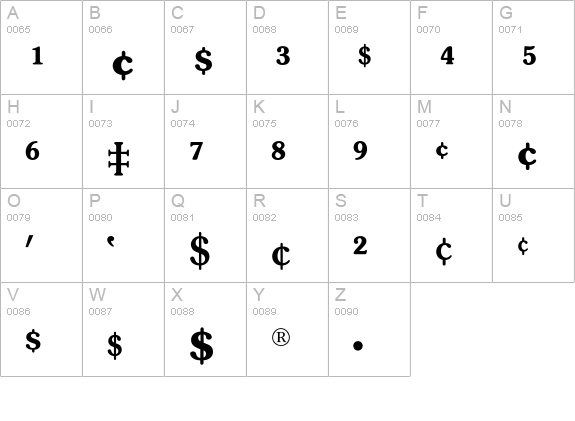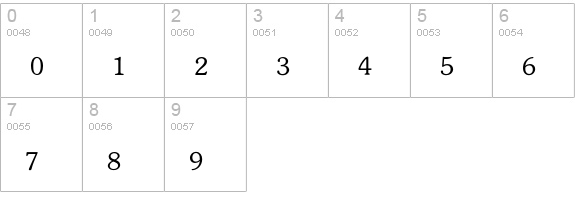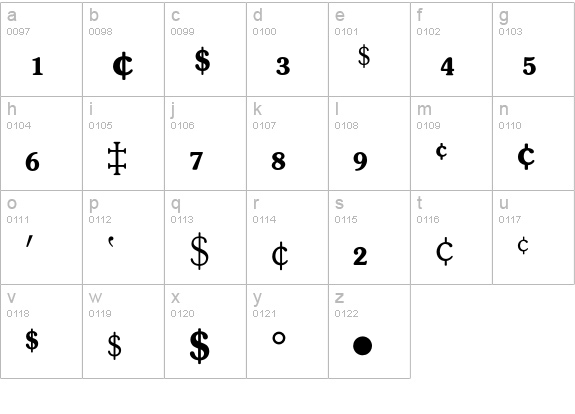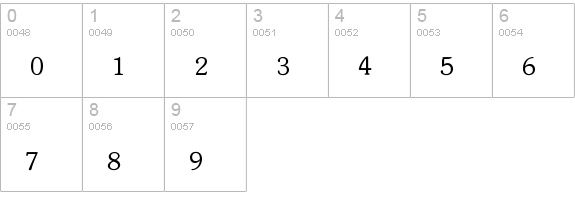
Introducing Souvenir* Fractions, the stunningly versatile font that effortlessly combines elegance with a touch of nostalgia. With its carefully crafted letterforms and delicate serifs, this font exudes a timeless charm that is perfect for any project. But what sets Souvenir* Fractions apart is its incredible versatility. Whether you're designing a wedding invitation, creating a vintage-inspired logo, or even working on a modern website, this font will elevate your designs to new heights. Its clean lines and balanced proportions make it legible and readable in any size, ensuring that your message is delivered with clarity and sophistication. But that's not all. Souvenir* Fractions also offers a unique feature that sets it apart from other fonts - fractions. Perfect for any project that requires precise typographic fractions, this font includes a wide range of fraction glyphs that seamlessly blend into your text. And the best part? Souvenir* Fractions is freely available to download at FontsMarket.com. That's right, you can have this exquisite font at your fingertips without breaking the bank. So why wait? Enhance your designs with Souvenir* Fractions today and discover the power of timeless elegance.